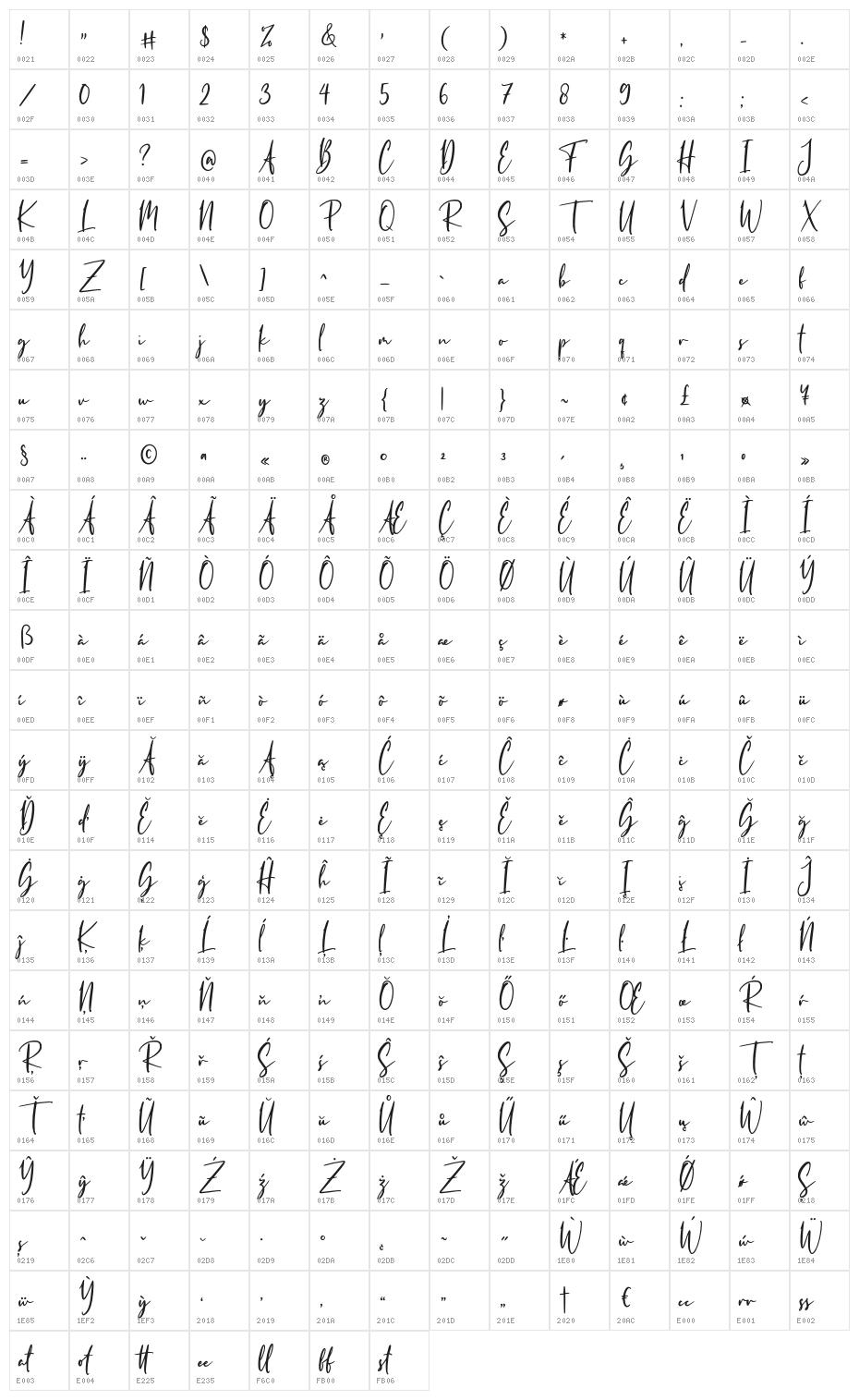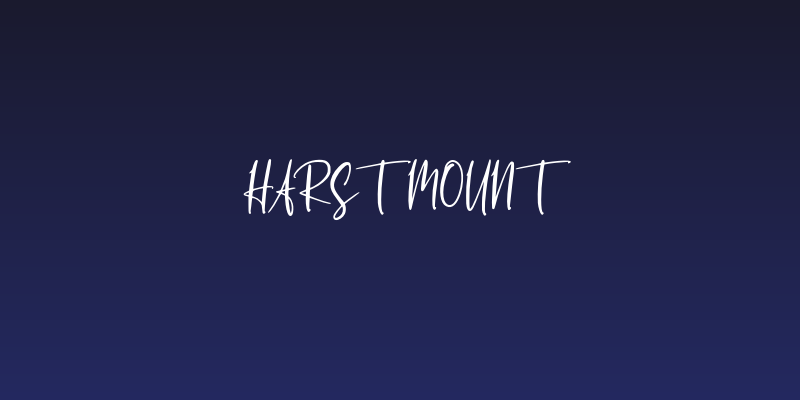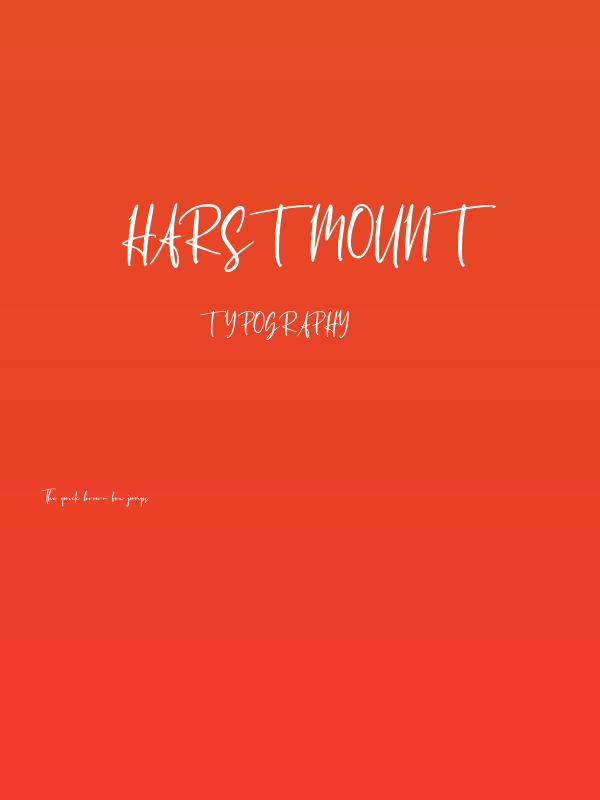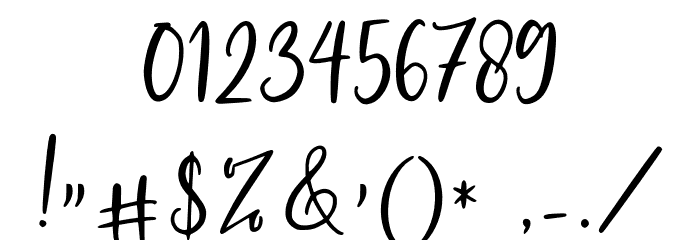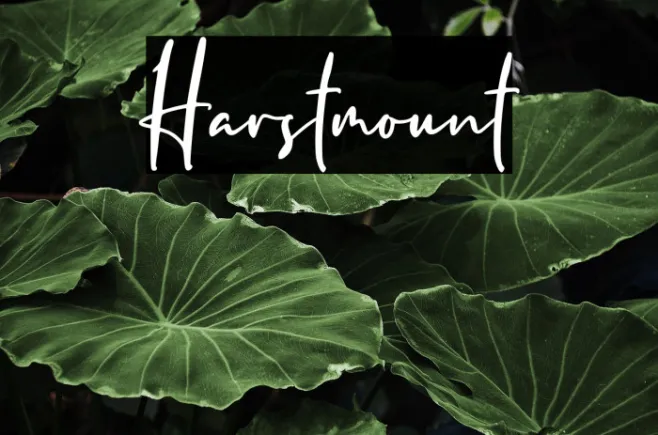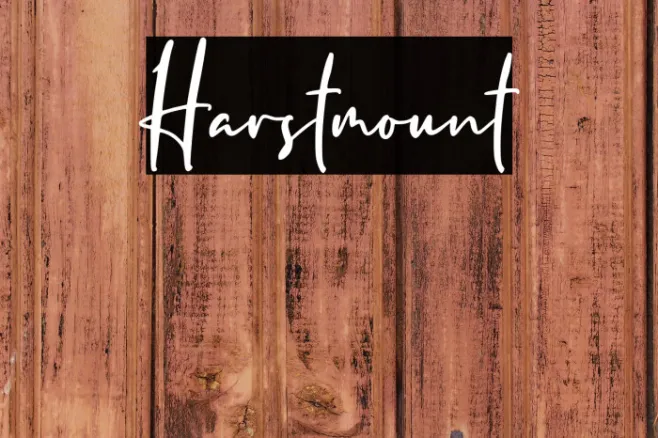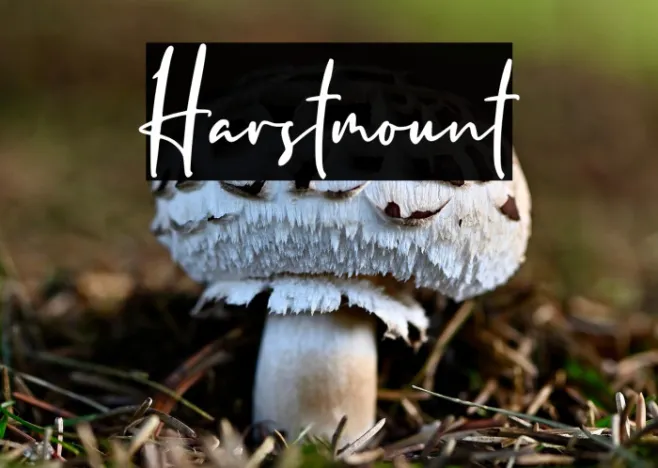
Harstmount Font
Harstmount Description
This font features a lively and expressive handwritten style, characterized by its fluid strokes and dynamic curves. The uppercase letters are bold and slightly slanted, giving a sense of movement and energy. The lowercase letters maintain a consistent flow, with some letters extending below the baseline, adding to its casual and informal appearance. The numerals are clear and legible, matching the overall style of the alphabet. Special characters are creatively integrated, maintaining the playful and artistic feel of the font. This font is perfect for projects that require a personal touch or a creative flair.